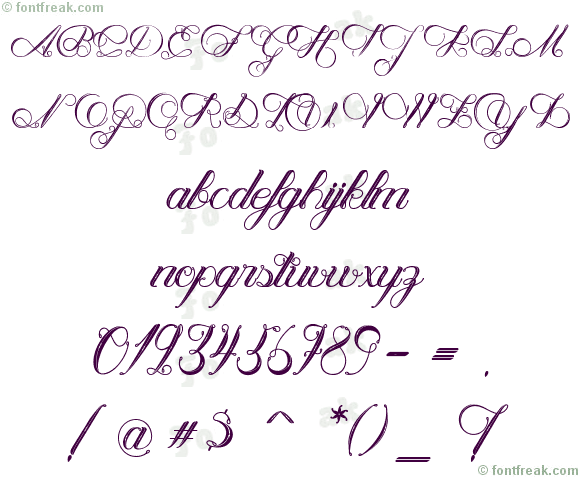
NenupharofVenus
About NenupharofVenus
NenupharofVenus by Maelle.K is a captivating script font that embodies elegance and sophistication. This freeware font is perfect for personal use and is designed with a delicate, flowing style that features intricate loops and curls, giving it a whimsical yet refined appearance. The stroke weight varies gracefully, creating a dynamic contrast that enhances its decorative flair. The spacing is thoughtfully designed to maintain readability while allowing the artistic elements to shine, making it ideal for various creative applications.
This font is an excellent choice for wedding invitations, where its romantic character can set the tone for a special day. Additionally, it works beautifully for crafting stylish greeting cards, ensuring that messages feel personal and heartfelt. Graphic designers will find NenupharofVenus particularly appealing for creating eye-catching movie posters, as its unique style can draw attention and evoke emotional responses. Restaurant menus can also benefit from this font, adding a touch of elegance that complements upscale dining experiences. Content creators seeking to enhance their branding will appreciate how this font can elevate their visual identity.
What truly sets NenupharofVenus apart is its ability to merge elegance with creativity, making it a standout choice for those looking to make a lasting impression. The font’s flowing lines and artistic details are sure to capture attention, making any project feel special and unique. Download the NenupharofVenus font free today and let your creativity flourish.